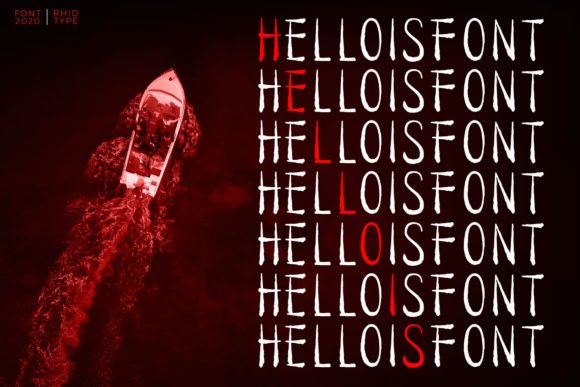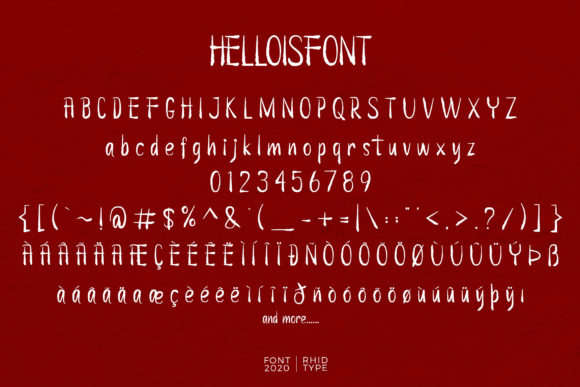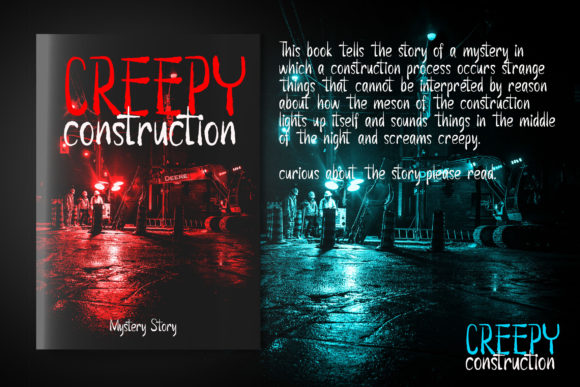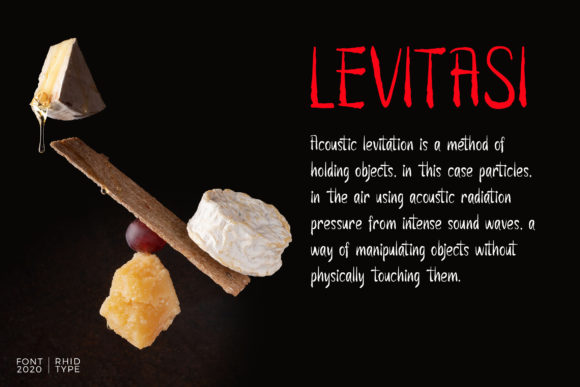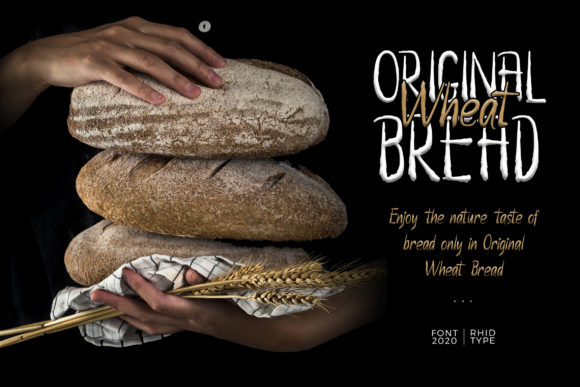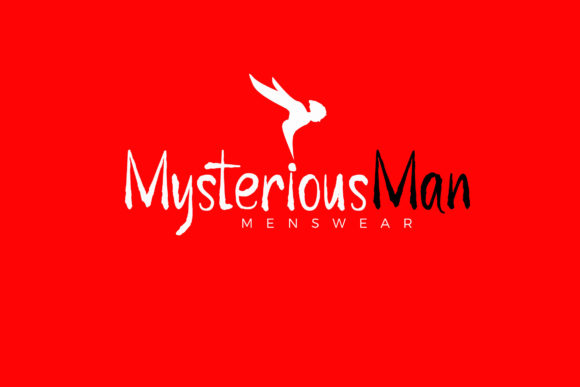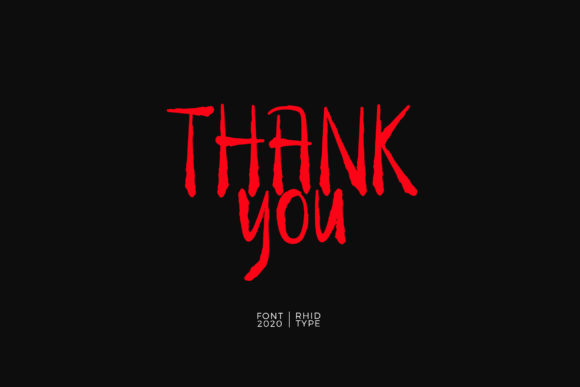
A Font to Unleash Your Dark Creativity
Have you ever found yourself in the middle of the night, surrounded by a sea of design ideas, and suddenly, a shiver runs down your spine as you imagine a project that will leave a lasting impression? This is where the magic of font selection comes in. For designers who crave that extra oomph in their Halloween designs or themed parties, we’ve got just the thing.
Introducing Hellois Font, a dramatic and horror display font that’s sure to send chills down the spines of your audience. This versatile font can be added to a variety of projects, from spooky posters to eerie invitations, and will undoubtedly elevate your design to the next level. With Hellois Font, you can confidently add a touch of darkness and mystery to your creations, making it an invaluable asset for designers who dare to be bold.
Hellois Font Key Features
- Unique Characteristics: Hellois Font features a unique blend of modern and vintage elements, making it perfect for designs that require a touch of sophistication and elegance.
Hellois Font Review
Overall, I’m really impressed with the Hellois Font. Here are some of its standout features: ✨
- Unique aesthetic: The font has a distinctive, hand-drawn look that’s both elegant and quirky.
- High legibility: Despite its decorative nature, the font is remarkably easy to read, even at small sizes.
- Customization options: Hellois Font comes with a range of styles and weights, making it versatile and adaptable to different design projects.
However, I do have some reservations: ⚠️
- Limited language support: While the font covers a decent range of languages, it’s not comprehensive, which may be a concern for global brands or organizations.
- Not ideal for small text: While the font is legible, it can look a bit cluttered at very small sizes, which may be a problem for certain design applications.
Overall, I think the Hellois Font is a great addition to any designer’s toolkit. Its unique aesthetic and high legibility make it a solid choice for projects that need a touch of personality. However, its limitations should be carefully considered before committing to using it for all your design needs.
For optimal results, use Hellois Font for headings and titles. This font is ideal for creative and modern designs, such as logos, business cards, and social media graphics. You can also use it for presentations, reports, and documents where a clean and professional look is required.